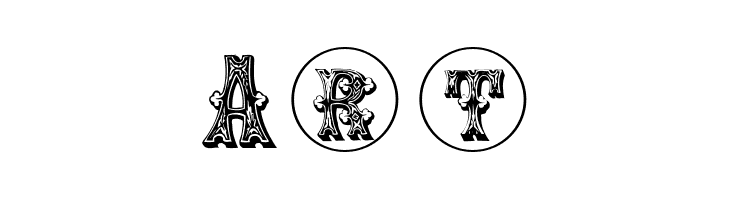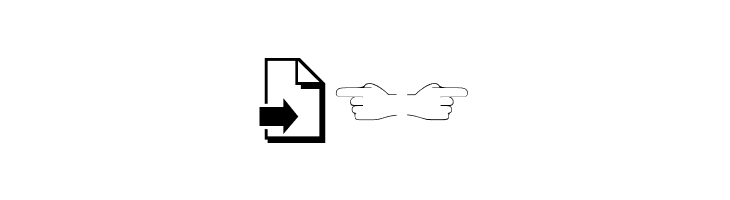
• GoticCaps
An ornate, Gothic-style decorative font with intricate details.
• Gotika
A geometric, angular font with Gothic-inspired decorative elements.
• Gotika Apvalus
A bold, Gothic-style font with rounded terminals and ornate details.
• Gotika Brokas
A bold, gothic-style font with sharp angles and dramatic contrast.
• Gotika Serifai A
A geometric serif font with sharp angles and modern design elements.
• Gotika Serifai B
A gothic-inspired serif font with sharp angles and decorative elements.
• Grado Gradoo NF
A playful, geometric font with bold, rounded shapes and dynamic cutouts.
• Graffiare
• GrafomanStd
A symbol font with office, document, and weather icons in a clean, outlined style.
• Gramophone NF
A bold, vintage-inspired serif font with strong, heavy strokes.